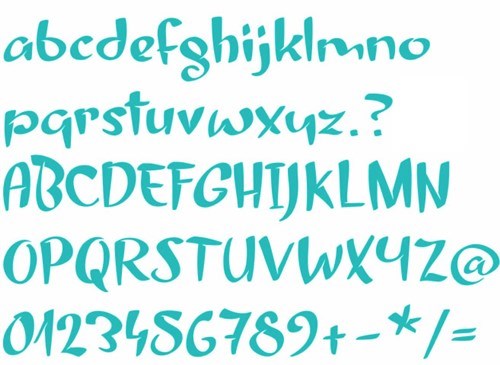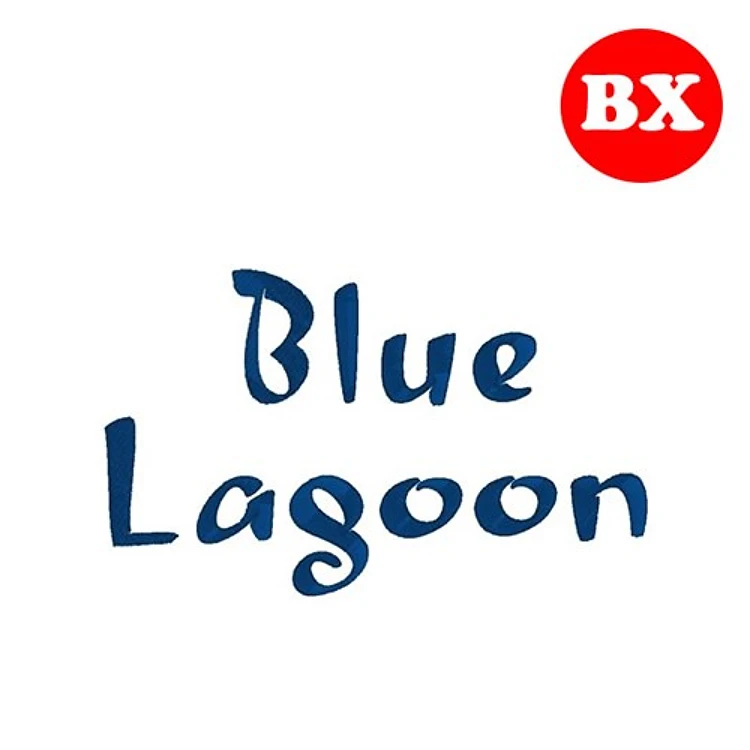
Unicorn Creatives is happy to present Blue Lagoon Embrilliance Embroidery Font - Playful Whimsical Script Lettering - BX font machine embroidery font which has Fluid script machine embroidery font, ideal for cozy home projects like cushions or throw blankets. This approachable style can be easily utilized in various designs. Available in BX font and Embrilliance formats. included. If you would like to view more embroidery fonts and alphabets please search our embroidery fonts page.